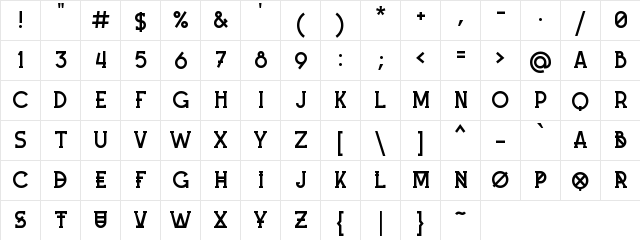
Mash-up Regular
Design Context for Mash-up Typeface
Mash-up offers clean, dependable letterforms without strong stylistic allegiance, making it a practical choice for designers who need flexibility.
Pro Tip: Use Mash-up in both headline and body roles to test its range before committing to a single application.